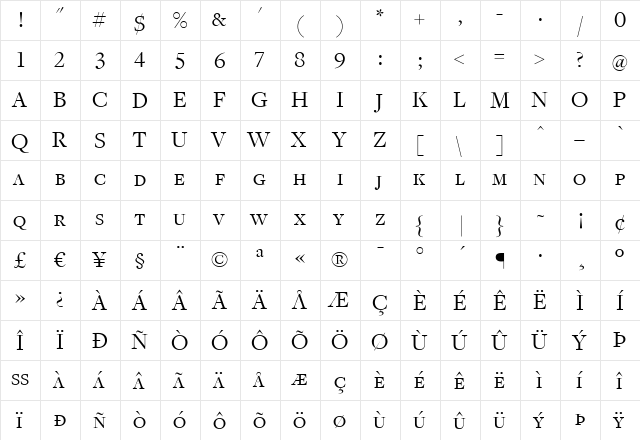
FreightDispBookSC Regular Font Preview
FreightDispBookSC Regular
FreightDispBookSC Regular Font Details
| Foundry | Joshua Darden & Phil's Fonts, Inc |
| Designer | Joshua Darden |
Design Context for FreightDispBookSC Typeface
FreightDispBookSC takes a measured approach to typography — its balanced proportions and neutral character make it a reliable workhorse for both digital and print work.